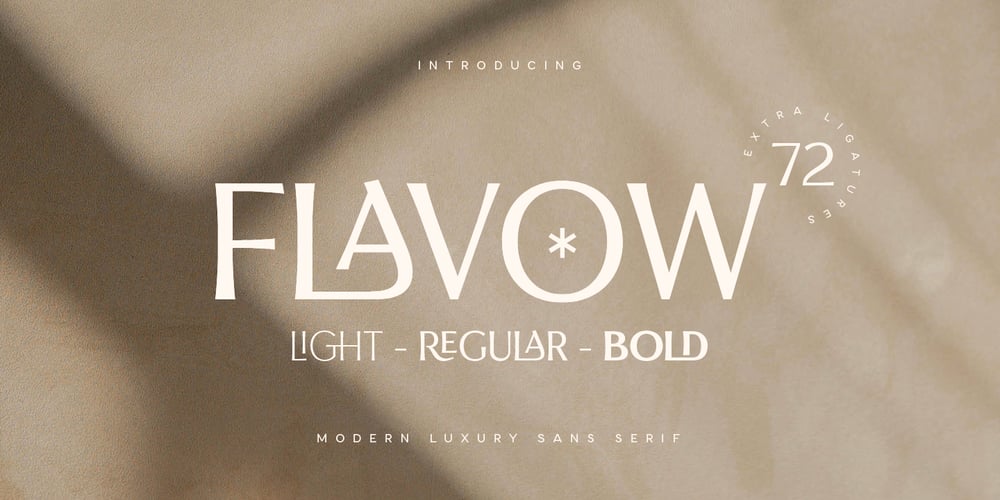
Flavow Font Family was designed by Zamroni Hamzah and published by Sensatype Studio. Flavow contains 3 styles and family package options. An exclusive font tailored for sophisticated and modern branding, offering an elegant aesthetic to enhance your brand’s allure. Crafted with unique alternates, this font is designed to elevate the value of your brand. Whether you’re a designer or a product owner seeking stylish and modern solutions, this font provides the perfect answer. Boasting an array of ligature and bohemian characters, it opens the door to endless creative possibilities, allowing you to create a myriad of variations for your unique and stylish designs.What’s Included: 4 Format File type Ready with: Light, Regular, Bold Weights Ligature Characters Character set A-Z Numerals & Punctuation Accented Characters (West Europe) Works on PC & Mac Recommended using Adobe Illustrator or Adobe Photoshop. Wish you enjoy our font. ๐